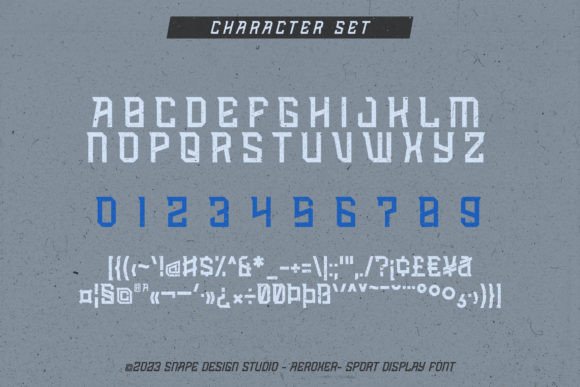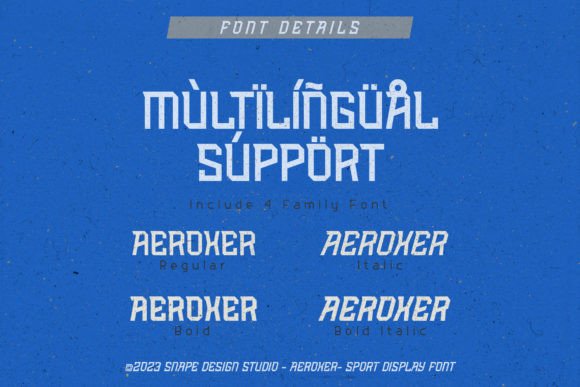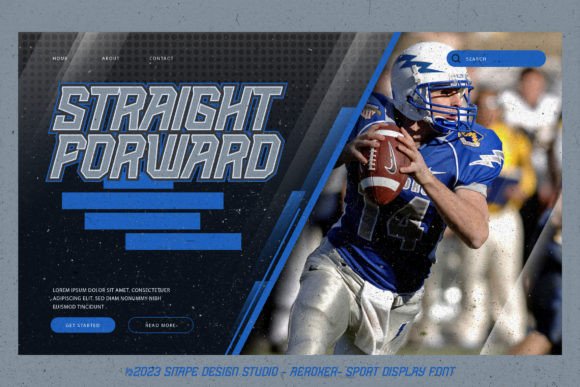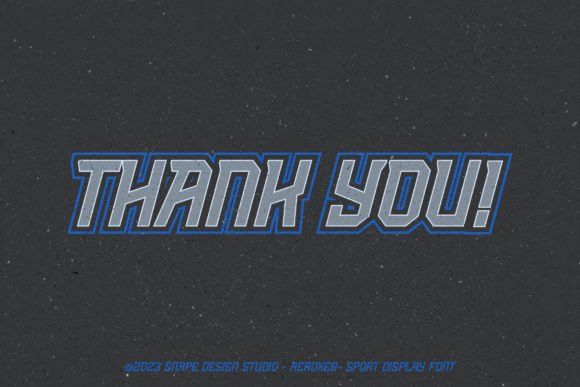
Unleash Your Creativity with the Aeroxer Font
Have you ever been working on a project, and you just can’t seem to find the right font to capture the energy and excitement you want to convey? You’re not alone. I’ve been there too, staring at my computer screen, scrolling through font options, and just not feeling it. That’s when I discovered the Aeroxer Font, and it changed everything.
Aeroxer Font is a modern, bold, and active typeface that’s designed to make any project stand out. Whether you’re creating a logo for a sports team, a poster for a music festival, or a brochure for a new outdoor gear company, Aeroxer Font is the perfect way to add some energy to your design. As a designer, you know how important it is to have the right tools at your disposal, and the Aeroxer Font is definitely one of them.
Aeroxer Font Key Features
- Font Family: Aeroxer comes in two font families, Regular and Bold, to provide versatility in design.
- Unique Characteristics: Aeroxer features a futuristic and tech-savvy design, making it ideal for modern and high-tech projects.
- Language Support: Supports a wide range of languages, including Latin, Cyrillic, and Greek alphabets.
Aeroxer Font Review
Aereoer Font is an interesting typeface that caught my attention with its unique features. ✨ The font’s futuristic feel is certainly eye-catching, making it perfect for projects that require a sleek, high-tech look. The bold and italic styles add a level of sophistication, which can be beneficial for creating visually appealing headlines or titles.
Here are some of the font’s key strengths:
- ✨ Unique and futuristic design
- ✨ Wide range of styles, including bold and italic
- ✨ Excellent for creating visually appealing headlines or titles
- ✨ Suitable for projects requiring a sleek, high-tech look
- ⚠️ The font may be too futuristic or over-the-top for certain projects
- ⚠️ The italic style may not be as polished as some other fonts
- ⚠️ The font may not be as versatile as other typefaces
Overall, I would say that Aereoer Font is a solid choice for projects that require a futuristic or high-tech feel. While it may have some limitations, the font’s unique design and wide range of styles make it a valuable addition to any designer’s toolkit.
Tips for Getting the Most Out of Aeroxer Font
Here are some tips to help you get the most out of the Aeroxer font:
- Use the Aeroxer font in combination with other fonts to create a unique and cohesive look.
- Pay attention to font pairing and contrast to ensure your text is readable and visually appealing.
The Aeroxer font is perfect for:
- Graphic design and branding projects.
- Web design and development projects.
- Print design and marketing materials.
Alternatives to Aeroxer Font for Designers
Inter Font
The Inter Font is a modern sans-serif typeface designed by Rasmus Andersson. It’s a highly legible font suitable for digital interfaces and body text. It’s a great alternative to Aeroxer Font for designers who want a clean and minimalist look.
Comparison: Inter Font is more minimalist and has a cleaner design compared to Aeroxer Font. It’s ideal for digital interfaces, whereas Aeroxer Font is more versatile and suitable for various design projects.
The Montserrat Font is a geometric sans-serif typeface inspired by urban typography. It’s a great choice for designers who want to add a touch of sophistication and elegance to their designs. It’s a good alternative to Aeroxer Font for designers who want a more refined and luxurious look.
Comparison: Montserrat Font has a more geometric and structured design compared to Aeroxer Font. It’s ideal for designs that require a sense of sophistication and elegance, whereas Aeroxer Font is more versatile and suitable for various design projects.